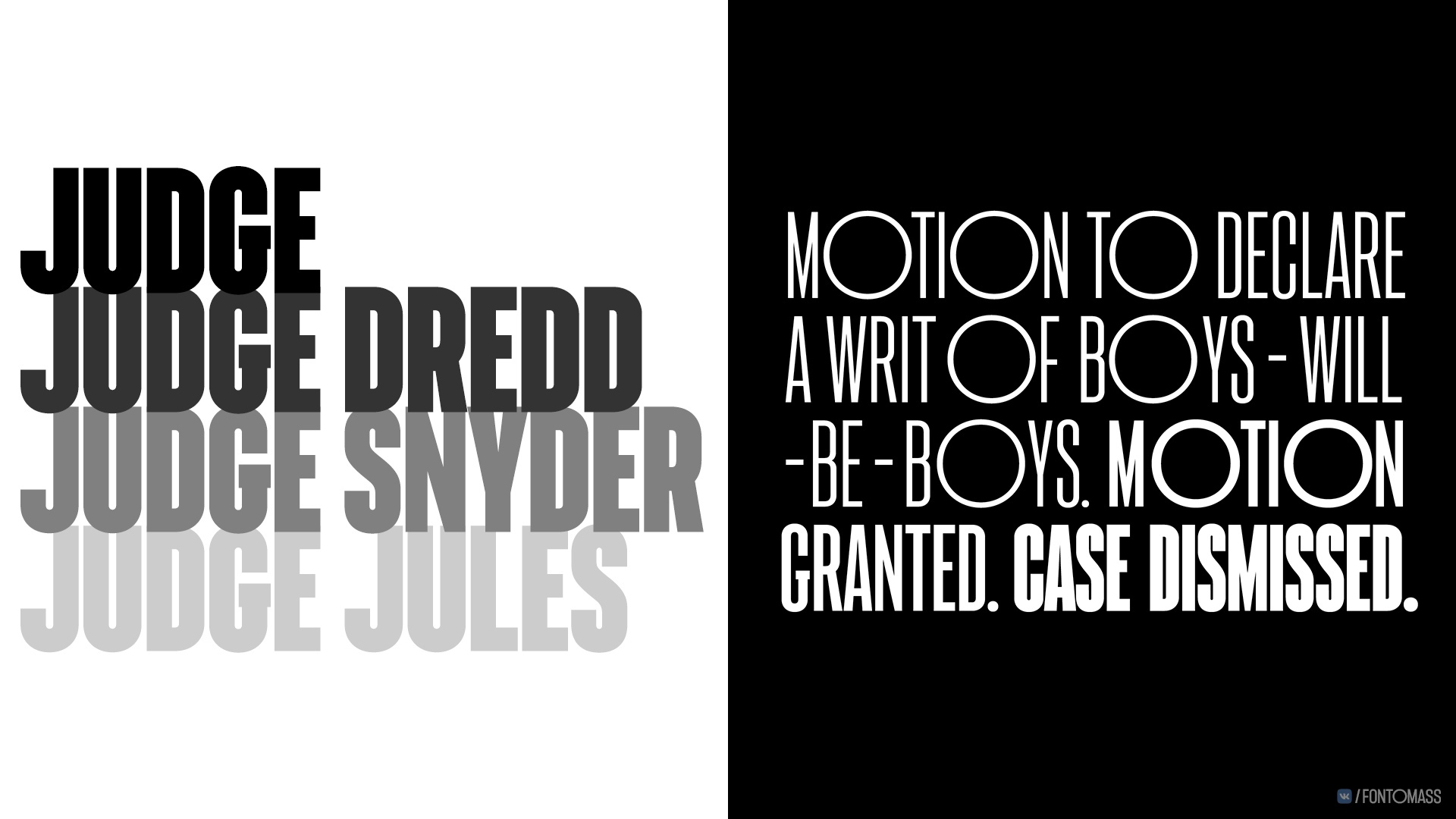
F37 Judge Font
F37 Judge Font is perfect for legal firm branding, courthouse documentation, judicial system materials, law enforcement communications, authoritative government documents, court reporting services, legal education materials, judicial review publications, constitutional law presentations, and official legal proceedings documentation.
What makes F37 Judge Font so exciting is its commanding embodiment of judicial authority and legal precision that captures the gravitas of the legal system and the unwavering commitment to justice through authoritatively crafted typography. This judicially inspired typeface features decisive letterforms with courthouse proportions and law-influenced character variations that immediately convey authority, impartiality, and the fundamental importance of legal proceedings. The font's authoritative construction and justice-focused aesthetic create an instant sense of legal credibility and judicial gravitas, making it ideal for projects that need to communicate legal authority, judicial fairness, and the life-protecting power of legal systems to audiences seeking authentic legal representation and meaningful justice advocacy.
The F37 Judge Font family typically includes multiple authoritative weights and judicial styles, often featuring regular through bold variations along with formally structured italic versions and legal-optimized alternatives. Legal font collections frequently offer extensive character sets including judicial symbols, legal notation, and courthouse elements that ensure optimal typography across diverse legal communication requirements and official judicial applications.
The judicial nature of F37 Judge Font makes it particularly effective for targeting demographics that require legal services and judicial representation in their personal and professional legal matters. Legal marketers and courthouse administrators will find this font especially valuable for materials that must establish immediate legal credibility and connect with audiences seeking authentic legal expertise and meaningful judicial representation.
What sets F37 Judge Font apart is its ability to convey legal authority while maintaining the accessibility necessary for effective public legal communication and judicial transparency. This balanced characteristic makes it suitable for both formal legal documentation and public legal education contexts where projecting judicial competence and maintaining democratic accessibility must work together harmoniously.
Professional designers recognize that F37 Judge Font brings invaluable legal credibility to projects across industries including legal services, judicial administration, law enforcement, and legal education. Its authoritative character and judicial appeal make it essential for organizations whose mission centers on upholding legal standards, promoting judicial fairness, and creating meaningful connections between legal expertise and public justice.
The systematically crafted legal authenticity of F37 Judge Font ensures consistent judicial messaging across all legal-focused communication applications while honoring the fundamental principles of legal authority and judicial impartiality in contemporary legal typography.